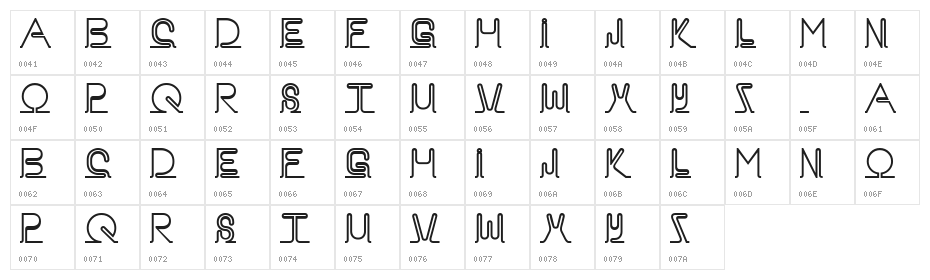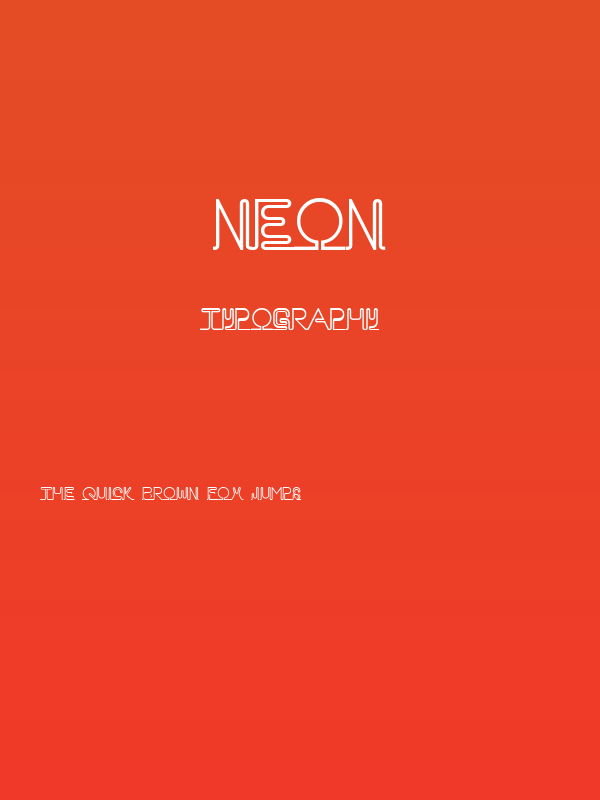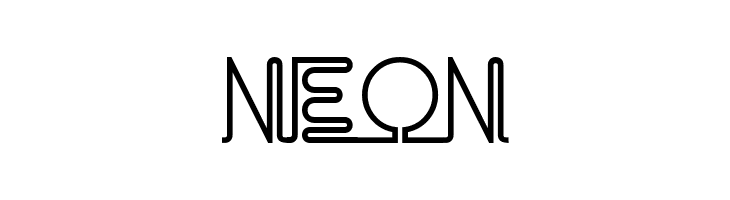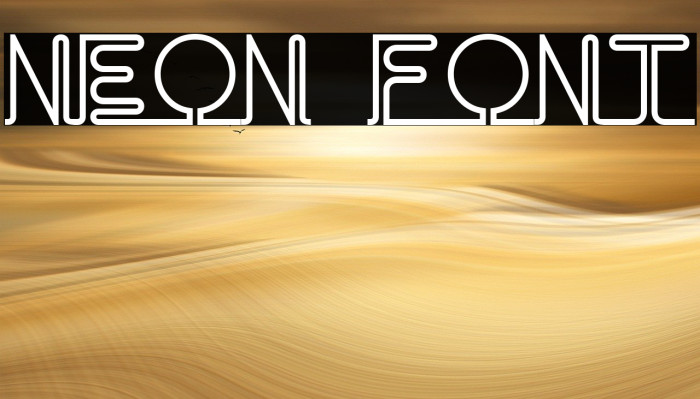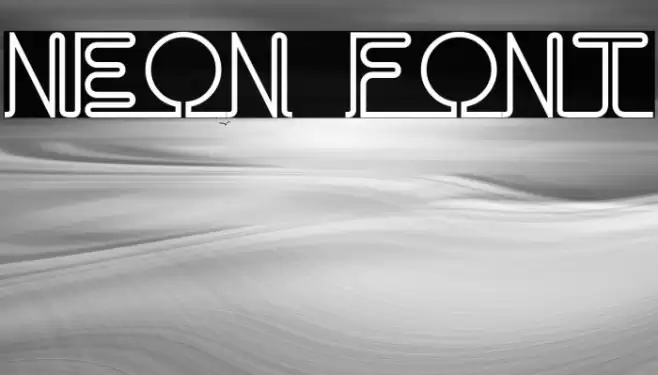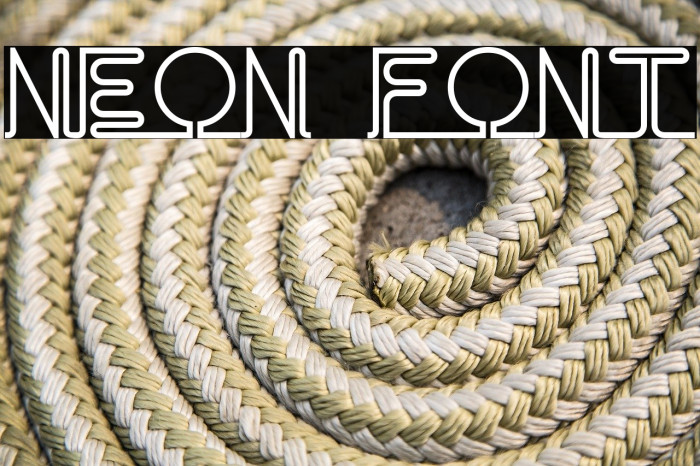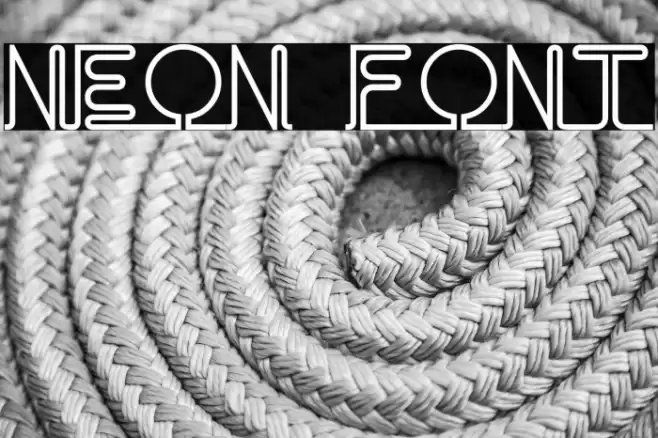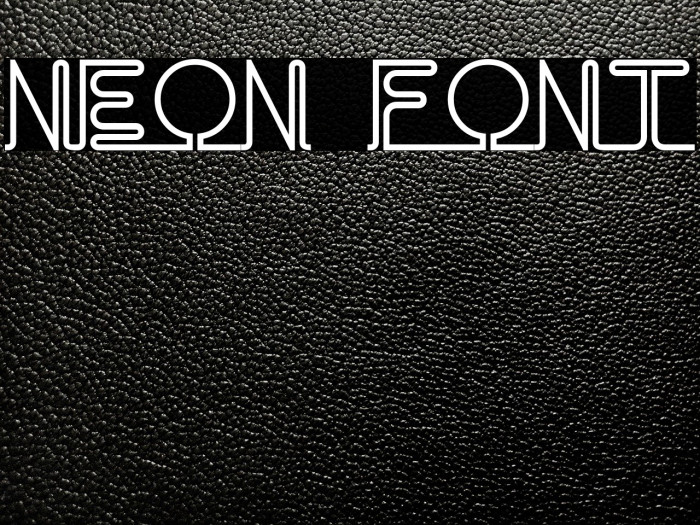
Neon Font
✎ Futuristic
| حالة الاستخدام | Headlines, Logos, Signage |
| مشاريع مقترحة | Ideal for branding, signage, posters, and digital media projects that require a futuristic and eye-catching style. |